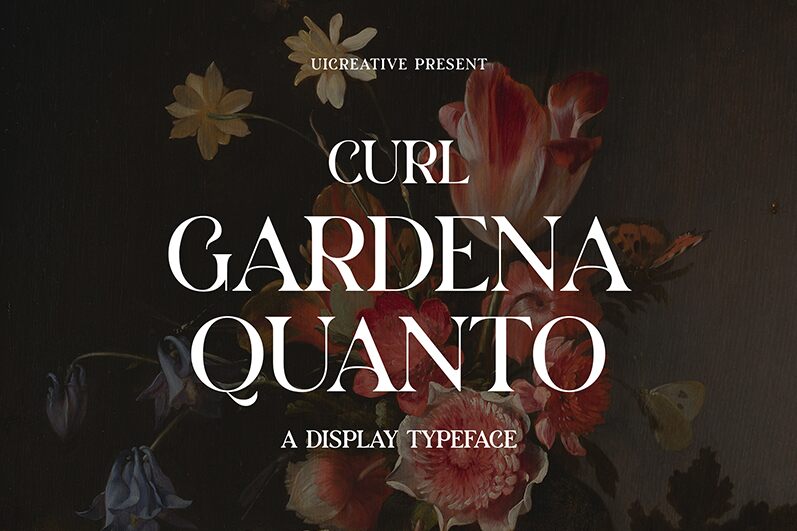
Gardena Quanto, a captivating serif font crafted by UI Creative, exudes a refined elegance with its delicate strokes and harmonious proportions. This typeface's distinctive characteristics evoke a sense of timeless sophistication, making it a visually appealing choice for a wide range of design applications. The font's subtle yet impactful presence effortlessly enhances the overall aesthetic, lending an air of refined charm to any project.
Gardena Quanto's versatility makes it a versatile selection for branding, editorial design, and even more formal typographic compositions. Its serene and sophisticated appearance lends itself well to high-end publications, luxury product packaging, and prestigious event materials, where a touch of refined style is paramount.